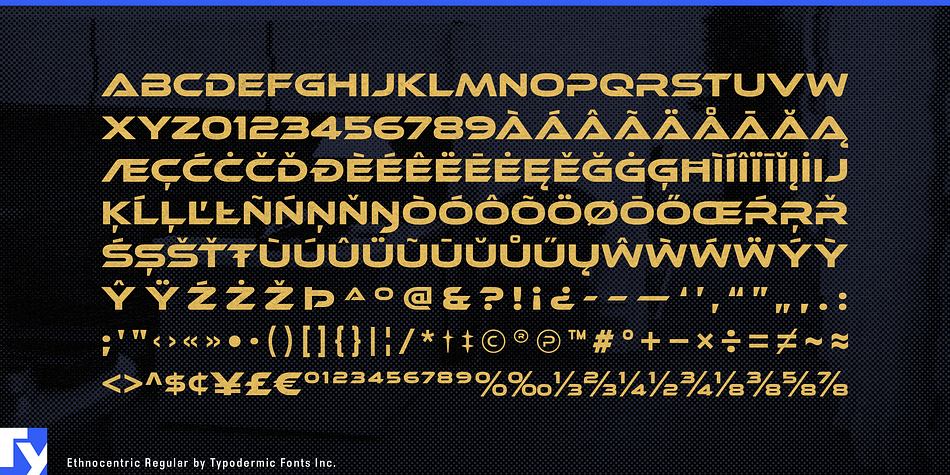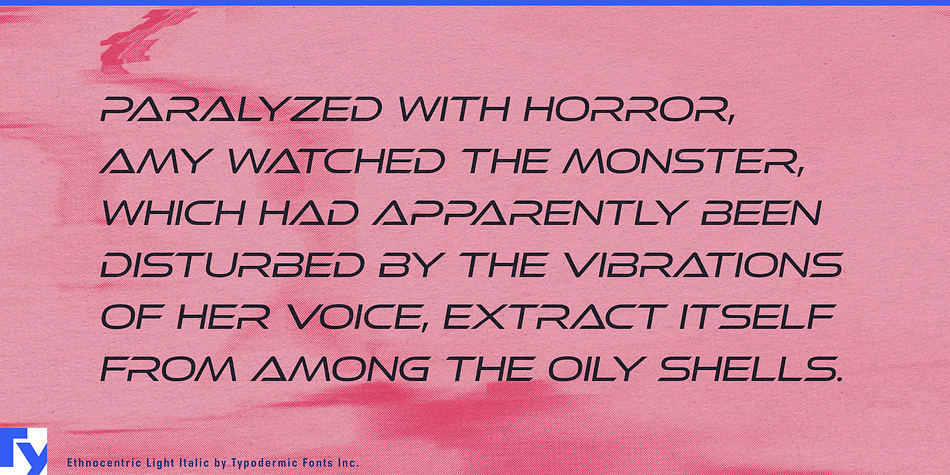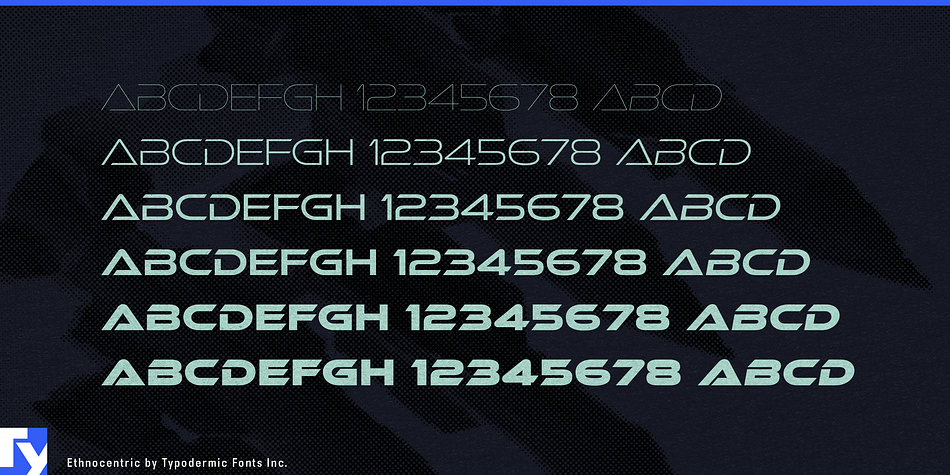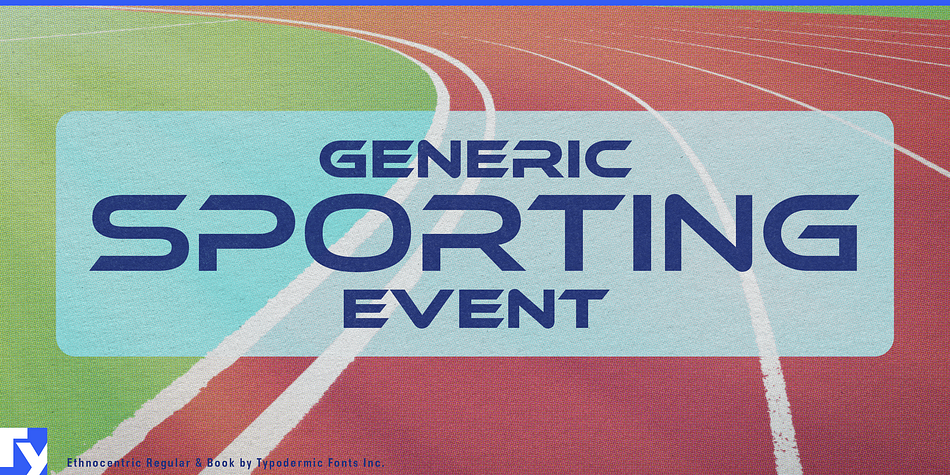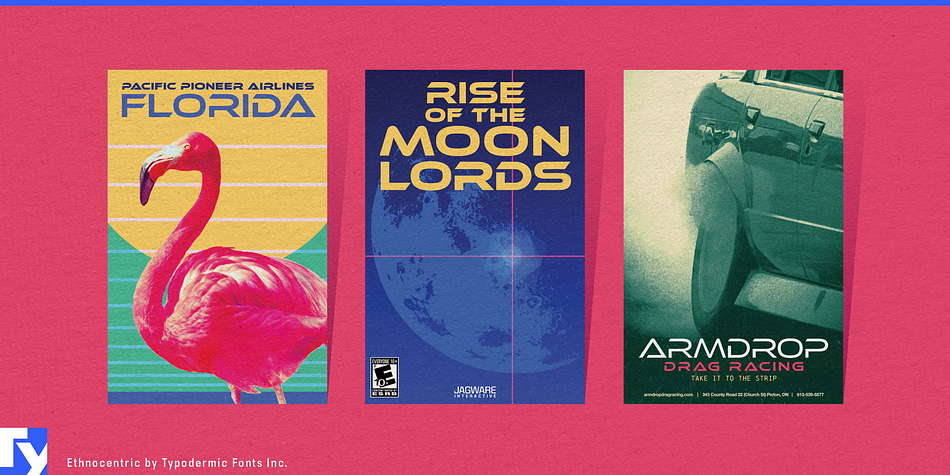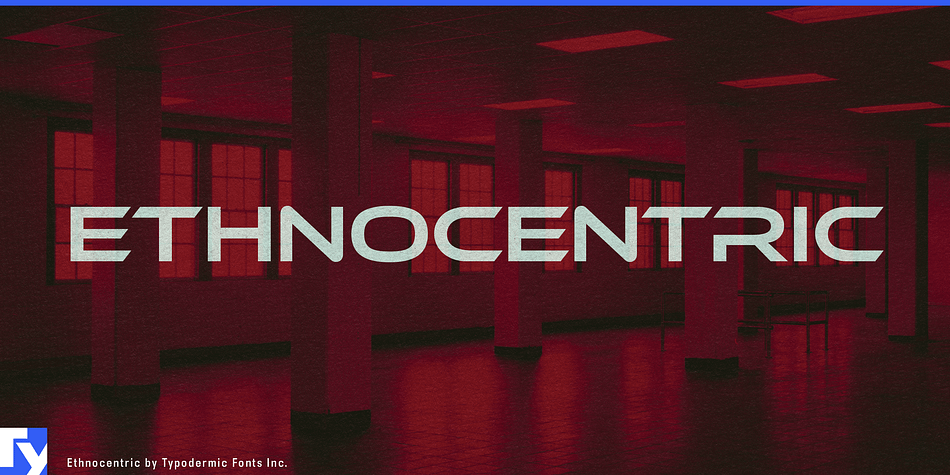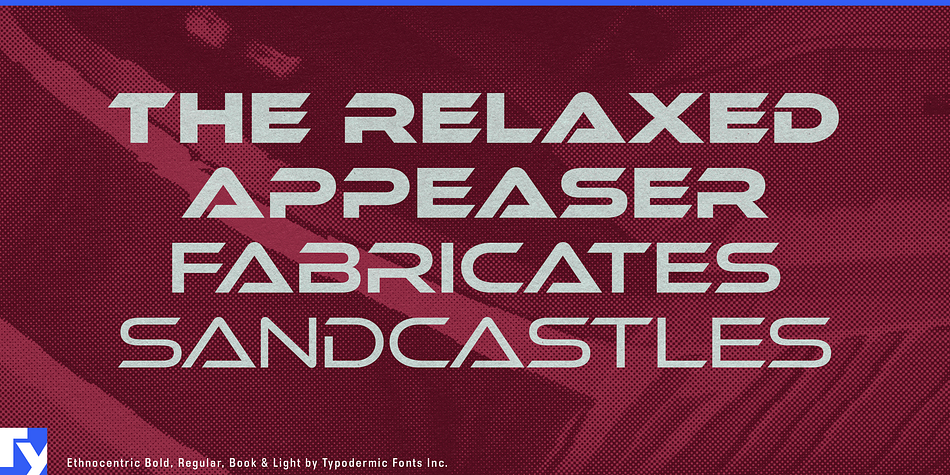
Ethnocentric is a display sans font family. This typeface has twelve styles and was published by Typodermic Fonts Inc.
Ethnocentric is an accelerated, ultramodern typeface. Outstretched pod forms suggest rapid horizontal movement. Sharp diagonal cuts and anomalistic gaps inject your words with nontraditional, scientific sensibility. Ethnocentric is available is six weights and italics.